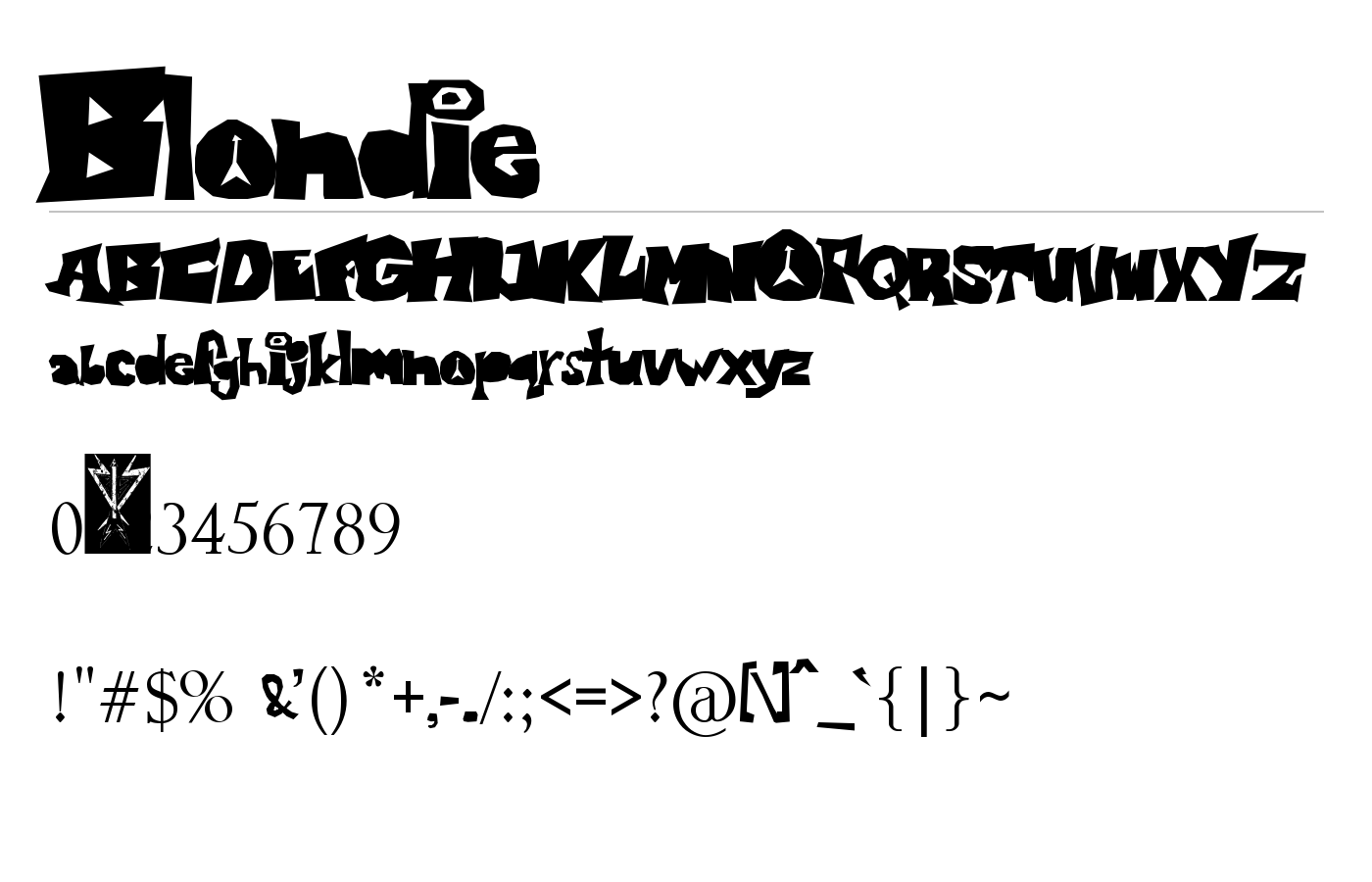
Blondie Font is a bold, jagged display typeface with a hand-cut, irregular style that evokes a playful and edgy personality. Its chunky, uneven letterforms and quirky shapes make it ideal for creative, fun designs such as posters, logos, and headlines that want to stand out with a rebellious or artistic vibe. This font works best in large sizes where its unique character and expressive look can truly shine.
Blondie Font